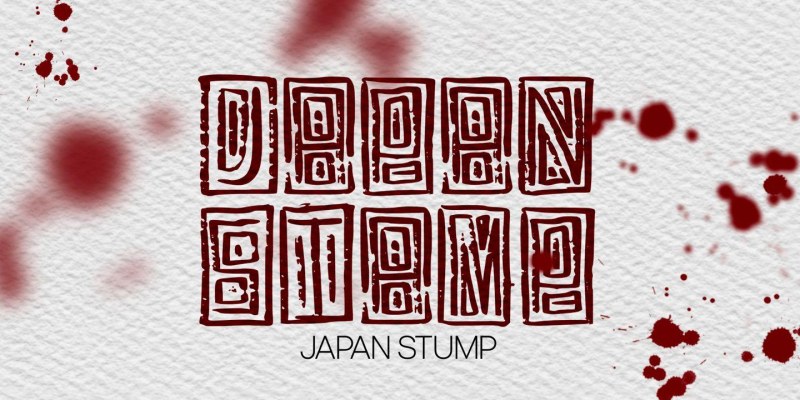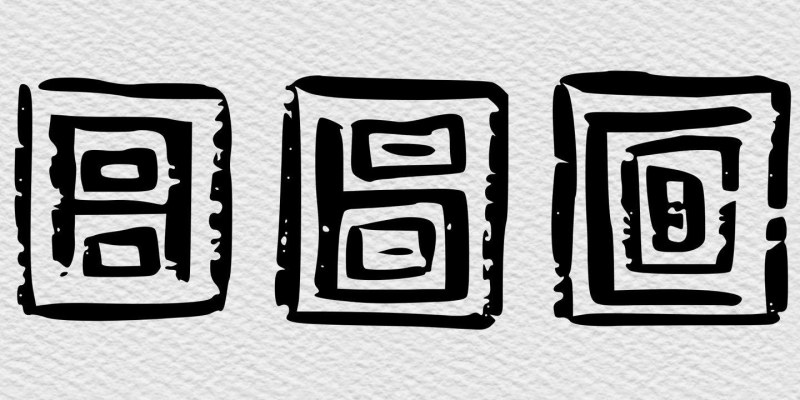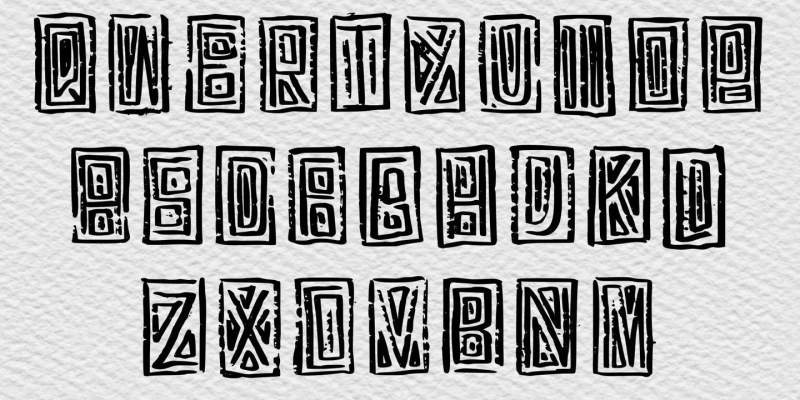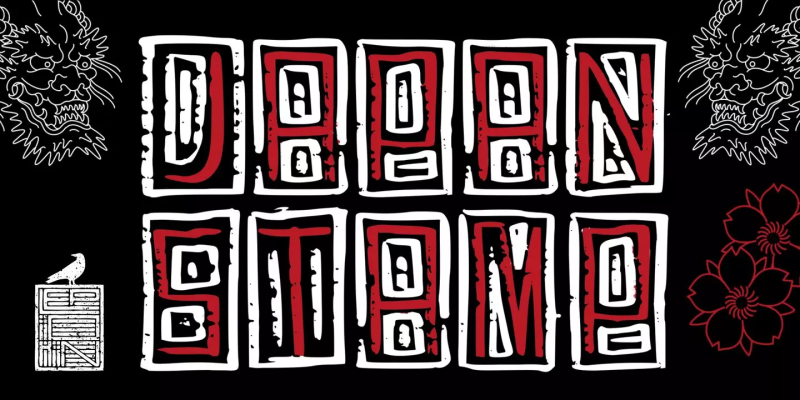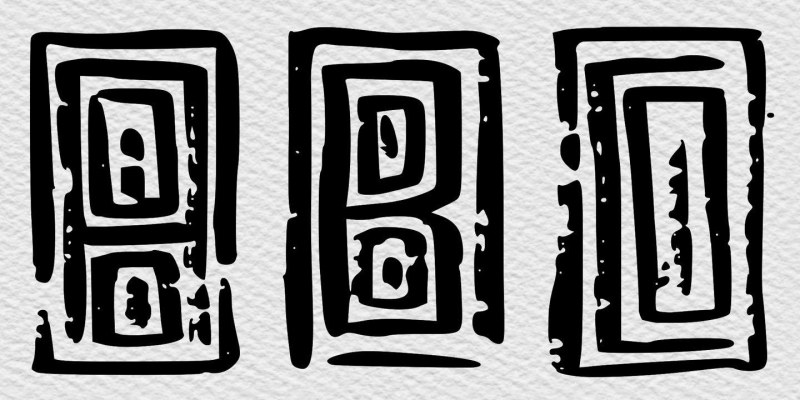
Japan Stamp Font
Japanese stamp – when creating this font, the author wanted to create a font unlike any other, taking inspiration from Japanese culture and history. It is one of a kind…
Japanese stamp – when creating this font, the author wanted to create a font unlike any other, taking inspiration from Japanese culture and history. It is one of a kind and unique font. It will immerse you in the historical era and add mystery to any of your projects. Anyone who wants to stand out among all this font will suit as out of place.
Where Japan Stamp Font works best
Event & seasonal design
Japan Stamp Font suits themed posters, holiday campaigns, festival identities and party invitations.
Game & entertainment titles
Decorative letterforms are a natural fit for game logos, movie-style titles and merch.
Packaging accents
Use Japan Stamp Font sparingly for product names or flavour labels that need personality.
What is Japan Stamp Font good for?